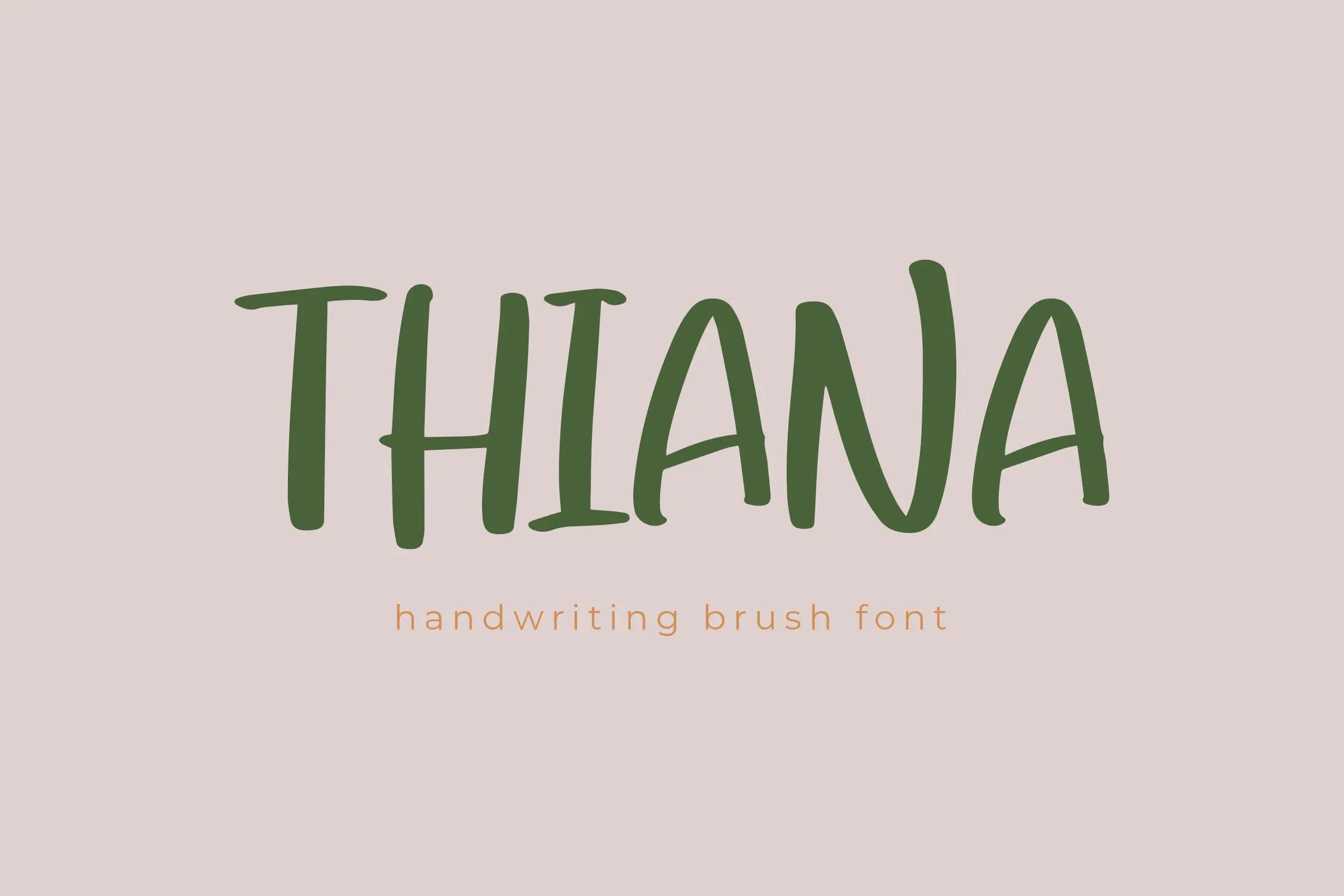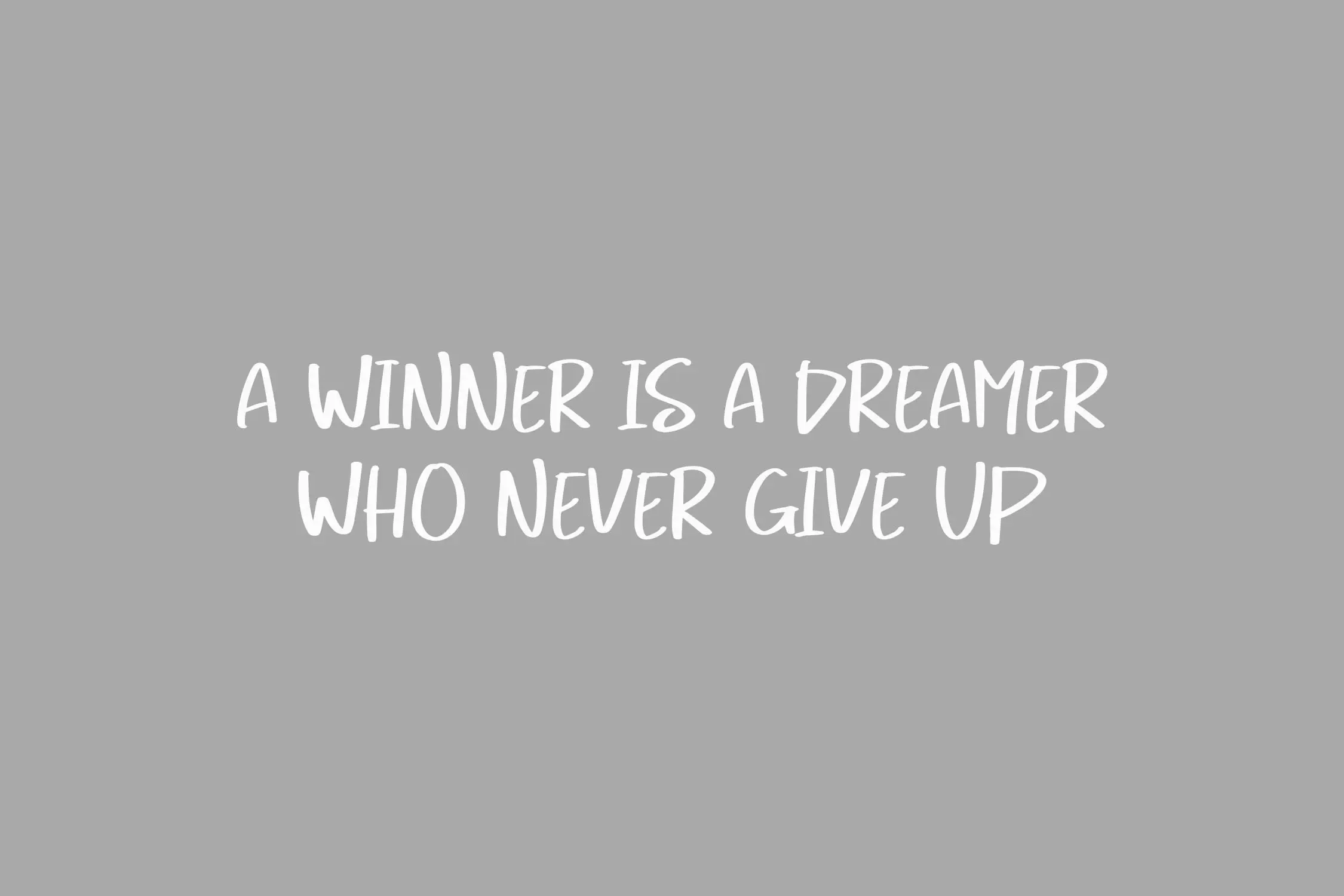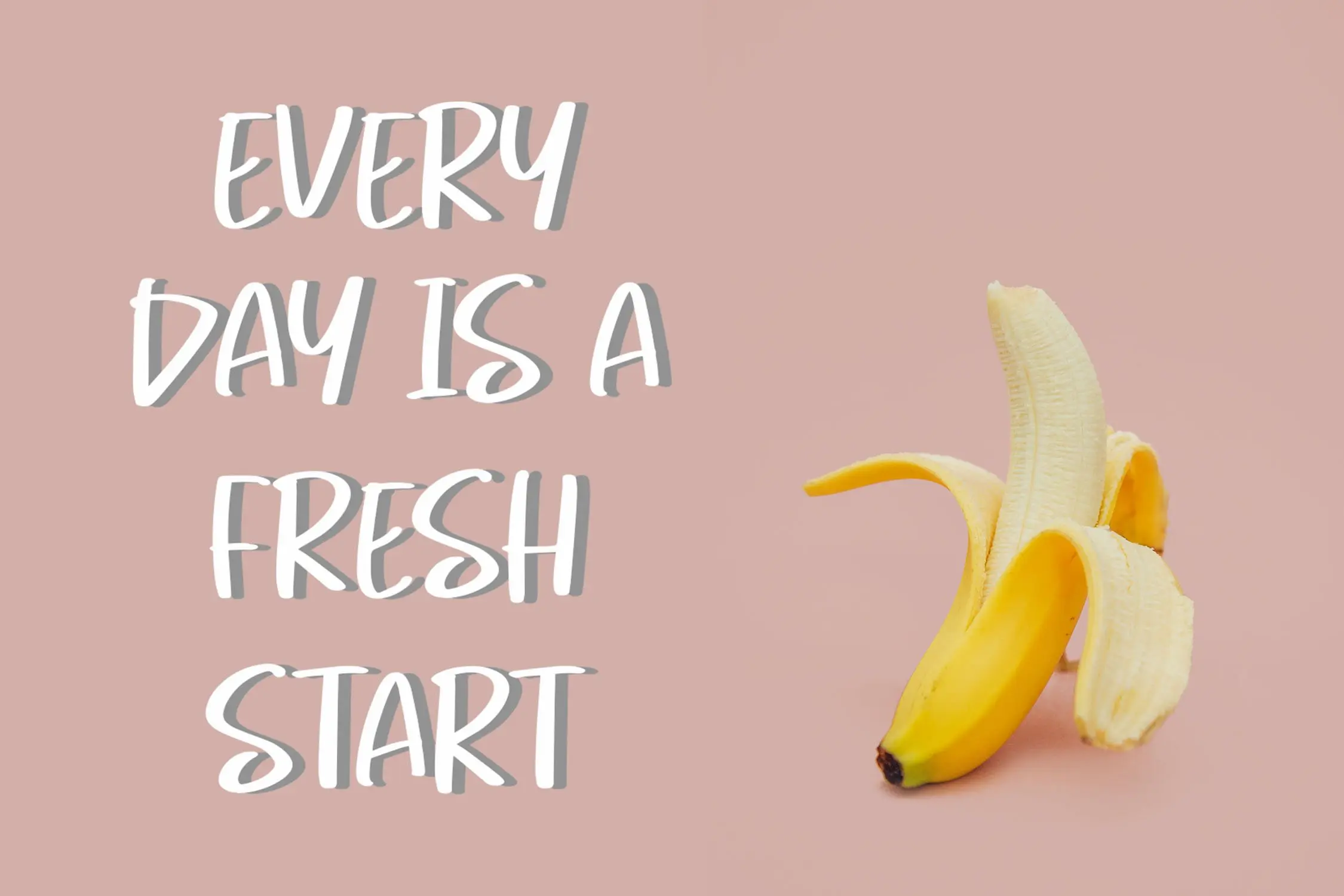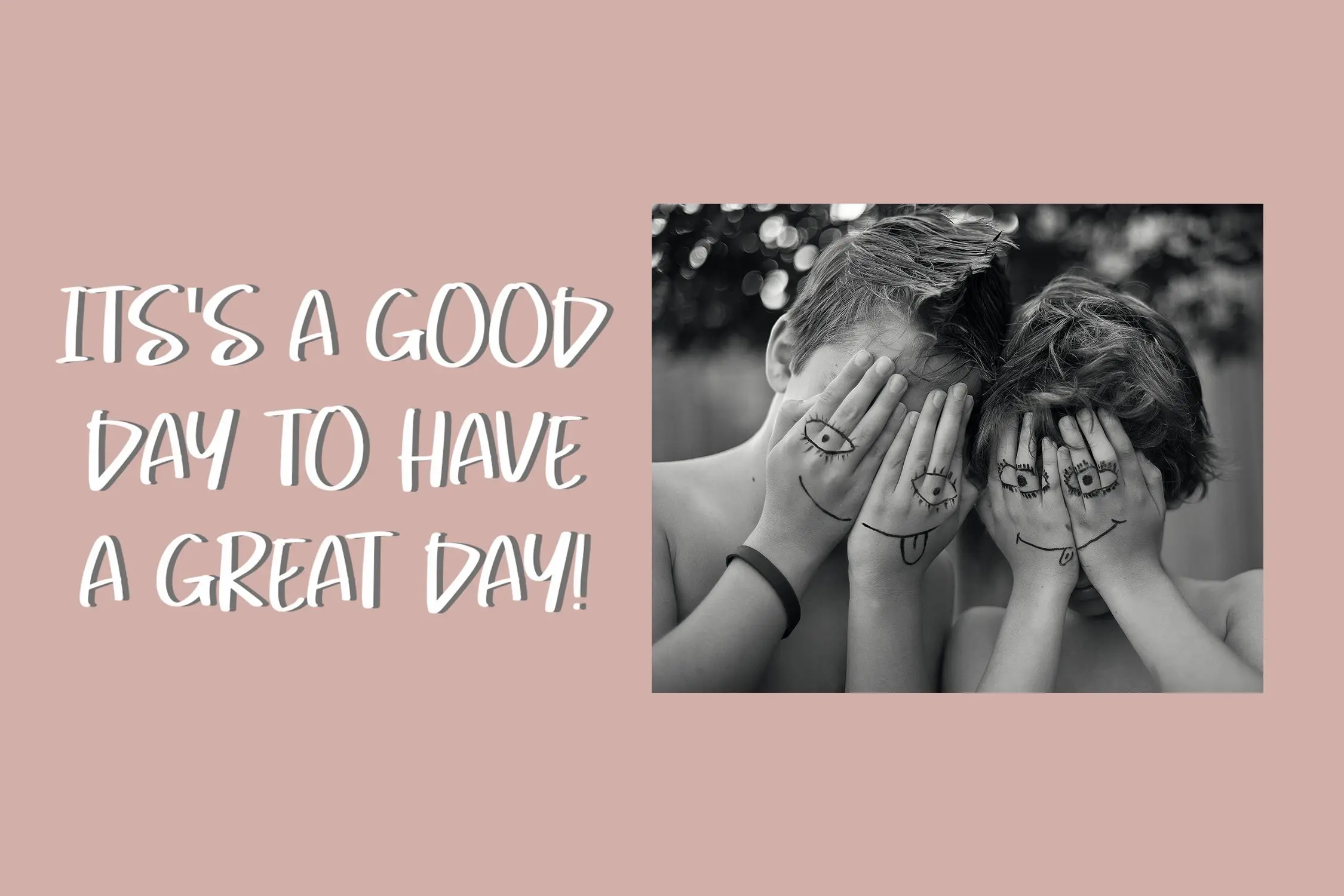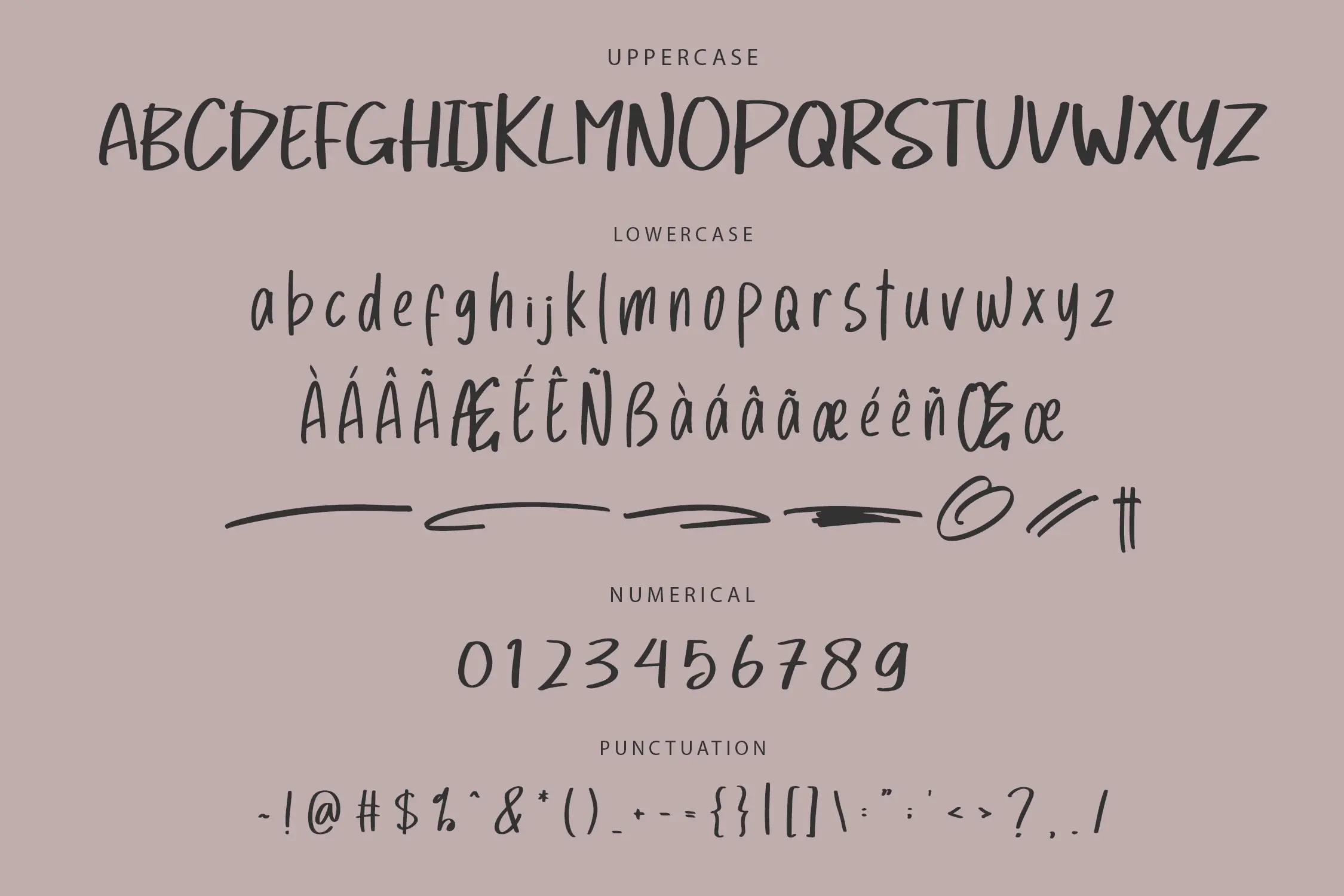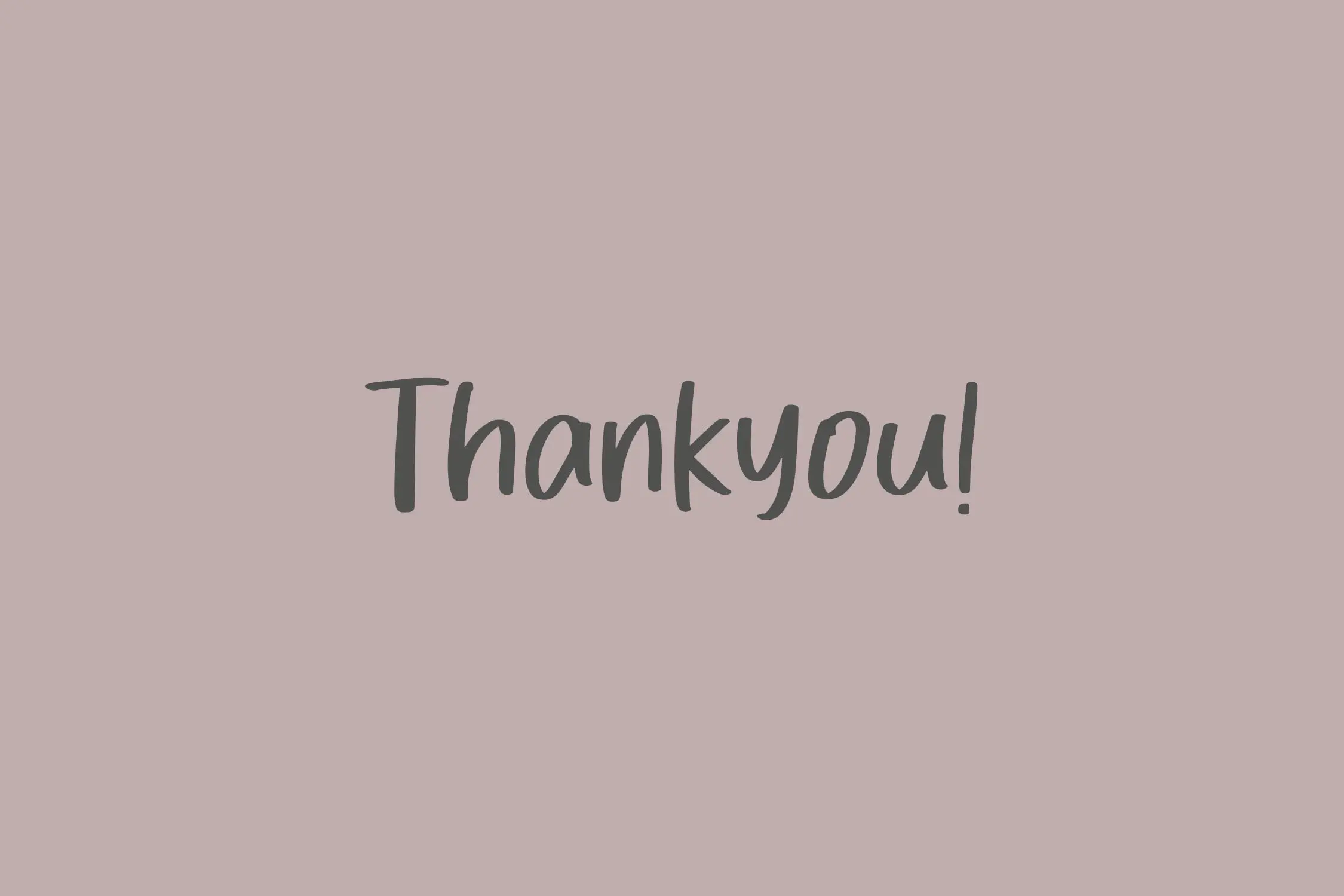
THIANA – Handbrush Style Handwriting Font
THIANA is a dynamic handwriting font featuring a bold handbrush style. Crafted with unique and artistic character shapes, this font brings a natural, authentic look to your designs, making it perfect for enhancing product visuals and creating eye-catching, modern graphics.
- Beautiful ligatures for smooth connections
- Stylistic alternates for customization
- Swashes to enhance your design
- Multilingual support for global projects